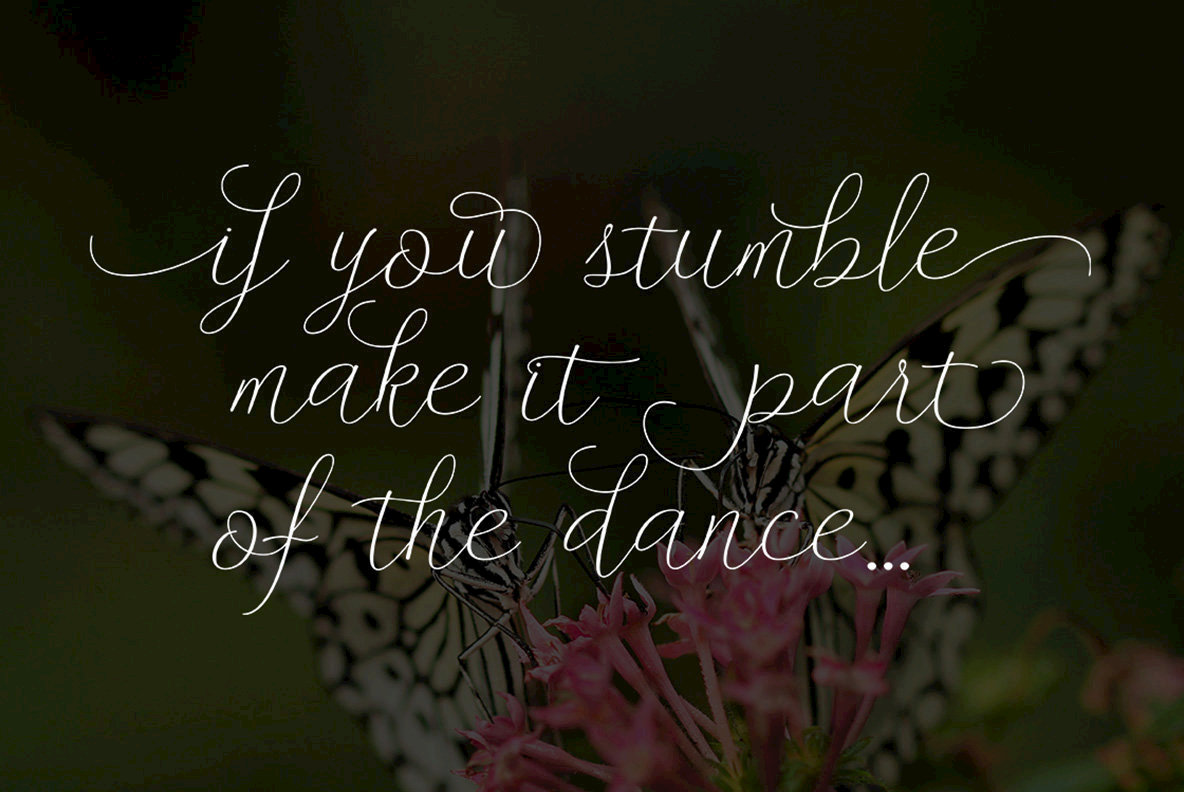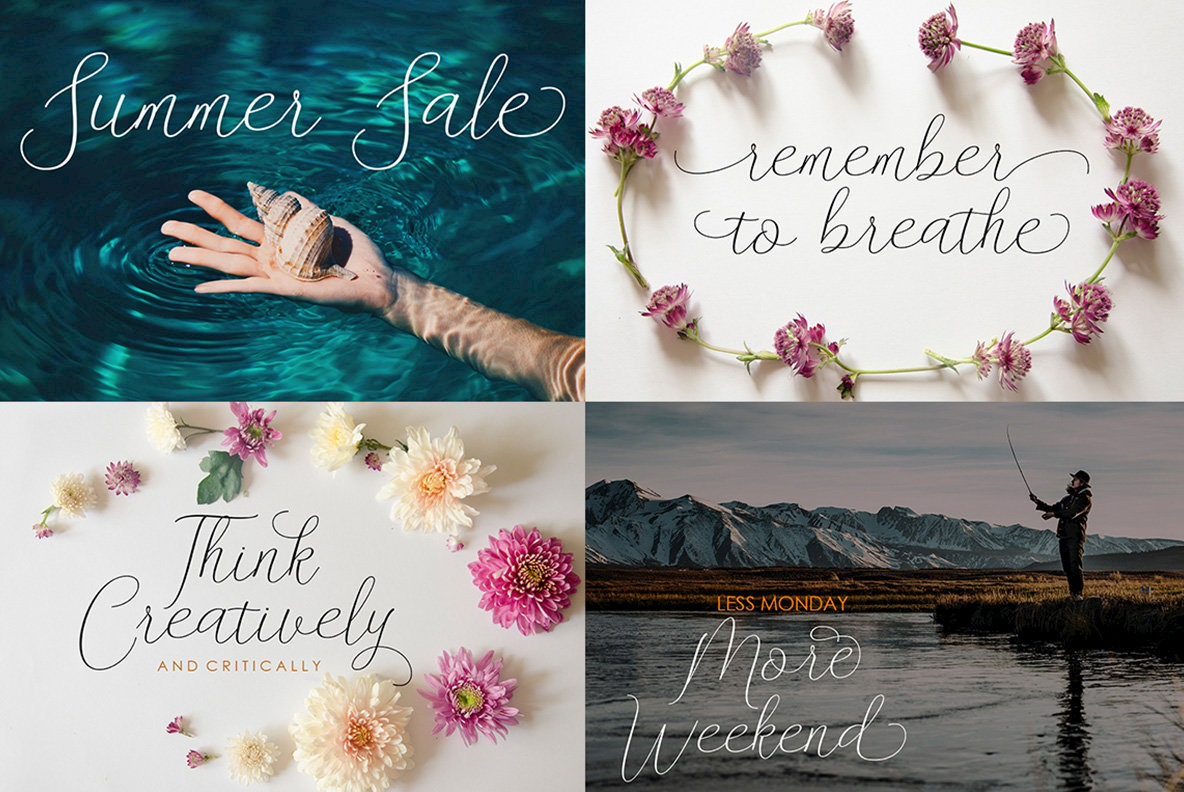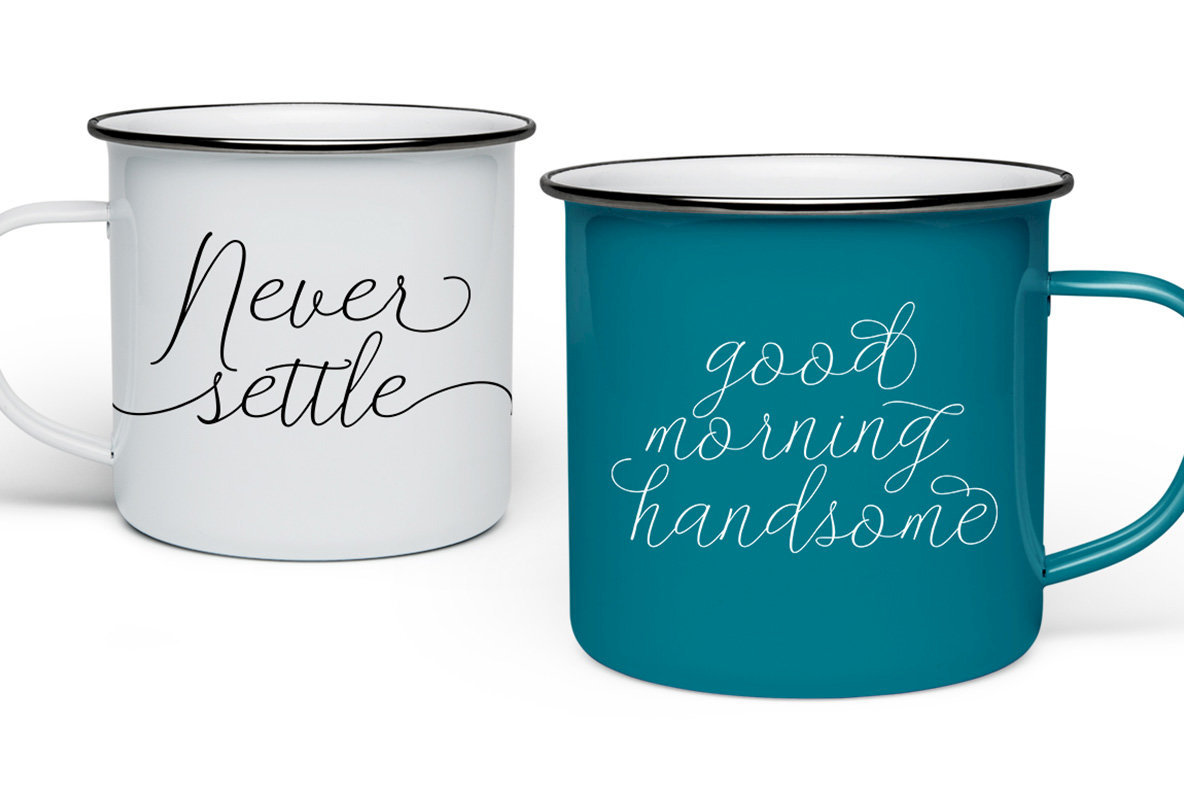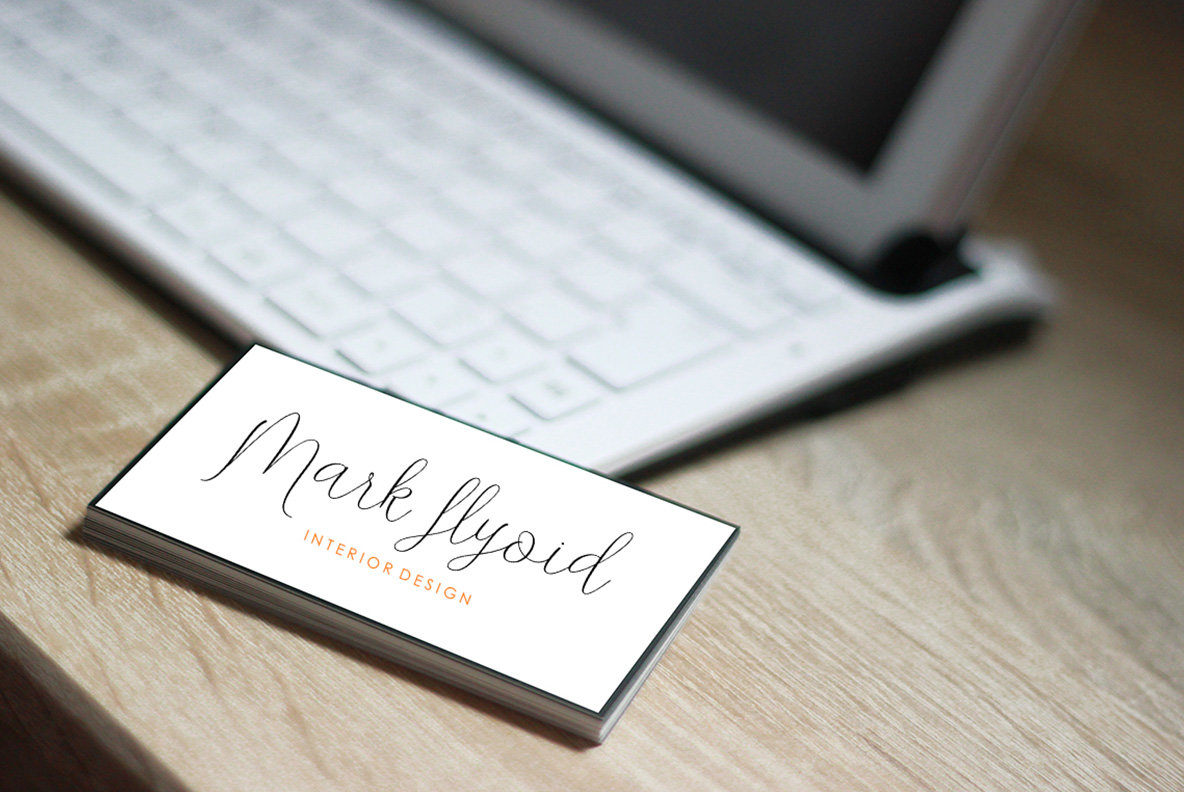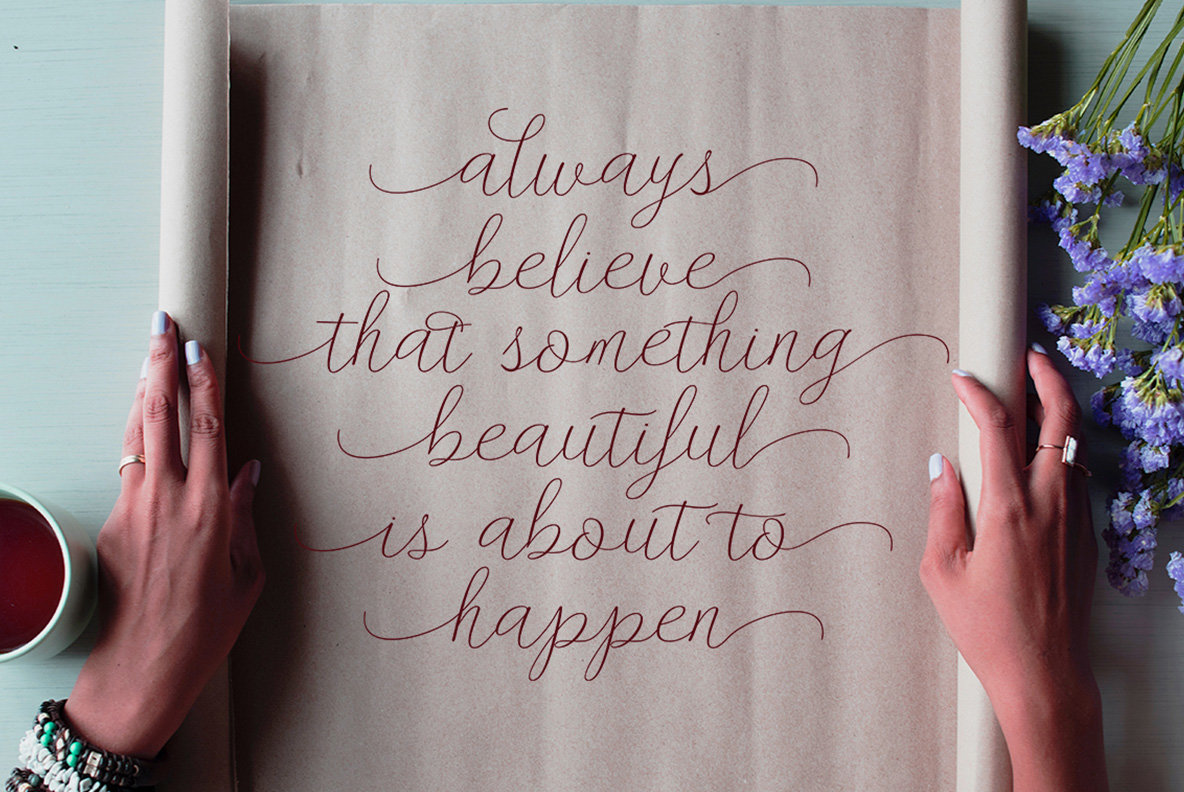
Danliny Font
Danliny Script captures the essence of modern calligraphy with its elegant and graceful design. The font is available in both Regular and Bold styles, offering versatility for a wide range of projects. With beautiful swashes, Danliny adds a sophisticated touch to logos, product packaging, wedding invitations, and more. To fully utilize Danliny Script, Adobe Illustrator, CorelDraw, or similar design programs can enable its advanced OpenType features. For those without such software, Mac users can access additional characters using Font Book, while Windows users can rely on Character Map.Danliny Script: Elegant Modern Calligraphy